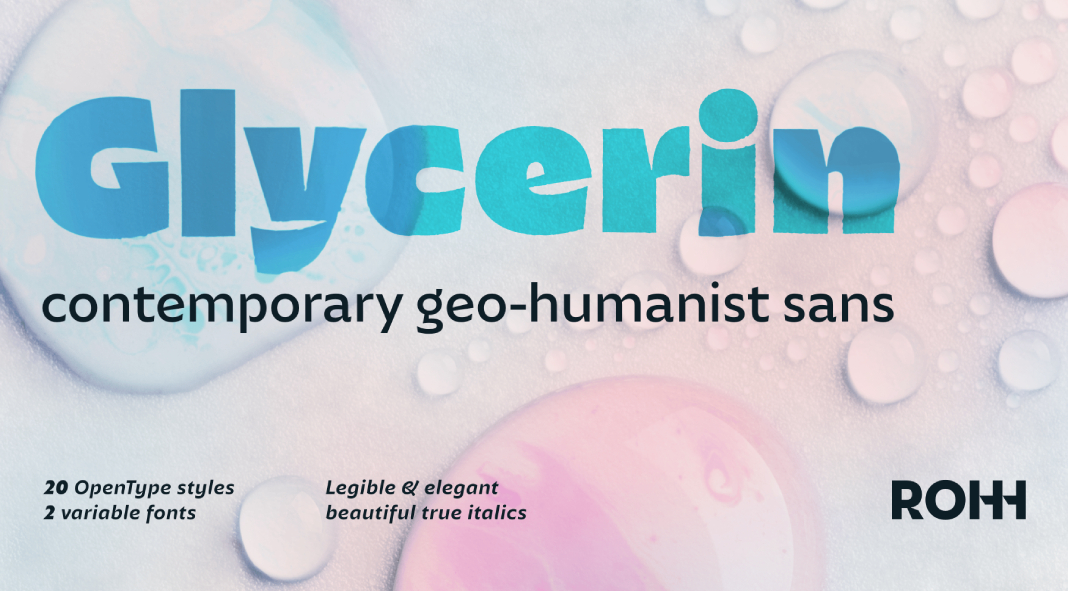
A Fusion of Modernity and Readability: The Glycerin Font Family
Glycerin, a contemporary geo-humanist sans font, is a testament to the mastery of typography by Roch Modrzejewski from ROHH. With its excellent readability and strong personality, Glycerin stands as a fully-equipped text font family, boasting well-proportioned characters, consistent color, and a beautiful, genuine italic style.
Characteristics and Applications
Designed with precision and care, Glycerin is a font family that finds its niche in various design applications. Its versatility shines through, making it ideal for both body text and captivating display scenarios. Here are some key features that distinguish Glycerin:
1. Readability and Elegance
The font family prioritizes readability without compromising on style. The characters are meticulously designed, ensuring that each letter is legible and aesthetically pleasing. This makes Glycerin a perfect choice for extended passages and paragraphs.
2. Weight Variation
Glycerin offers a range of weights, allowing designers to experiment and create unique visual hierarchies. The heavier weights in particular present exceptional opportunities for creating impactful and striking design elements.
3. Stylistic Versatility
The Upright Family of Glycerin introduces an alternative stylistic set, adding a geometric and minimalist effect. This versatility in style empowers designers to tailor the font to specific design visions, enhancing creativity and expression.
Glycerin: A Sibling to Gigafly
In the realm of modern, contrast-rich display fonts, Glycerin finds its counterpart in Gigafly. While Glycerin excels in text, Gigafly takes the spotlight in captivating display scenarios. Together, they form a dynamic duo, showcasing the creativity and adaptability of ROHH’s font offerings.
Roch Modrzejewski: The Mastermind Behind Glycerin
The Glycerin font family is a brainchild of Roch Modrzejewski, a talented designer with a vision for modern and sophisticated typography. Roch’s dedication to perfecting the art of font design is evident in Glycerin, which reflects his commitment to creating fonts that seamlessly blend aesthetics with functionality.